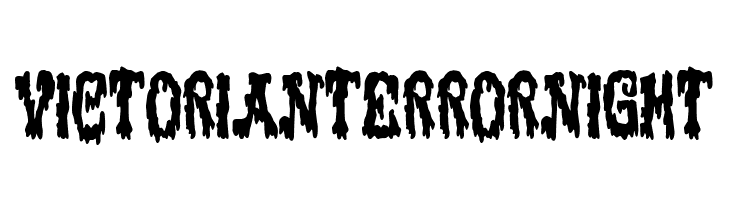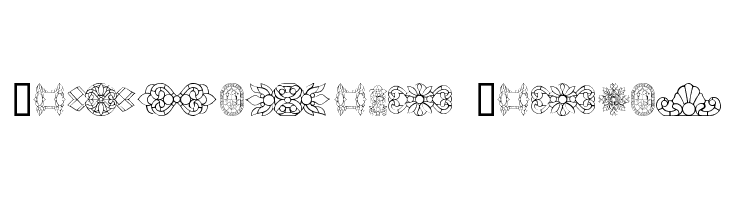
A bold, dripping font with a horror-inspired design.
Victorian-inspired design with bold rectangular shapes and ornate decorative elements.
A vintage, ornate font with decorative serifs and intricate details.
A decorative Victorian-style font with ornate uppercase and elegant lowercase letters.
An ornate, Victorian-inspired decorative font with intricate flourishes.
An ornate Victorian-style font with intricate flourishes and decorative elements.
An ornate, Victorian-style font with intricate flourishes and bold strokes.
A playful, casual handwritten font with irregular strokes.